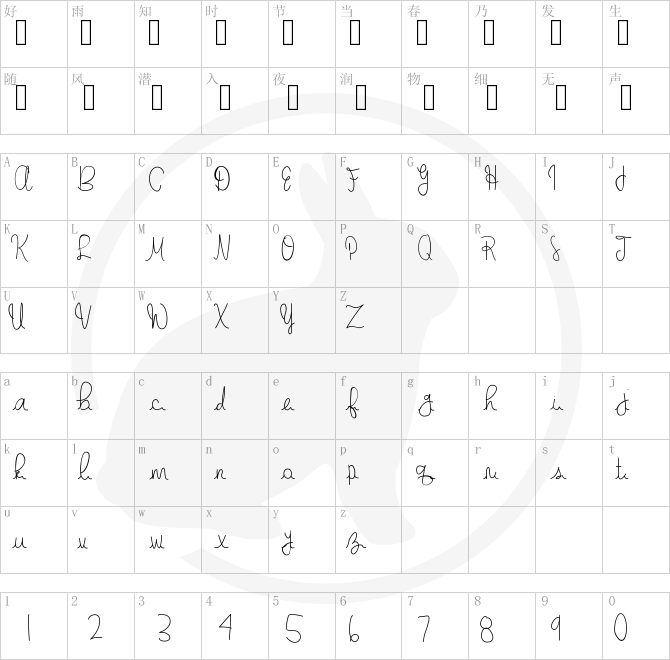
- Font Name:gabbishandwriting
gabbishandwriting.ttf is a very beautiful artistic font, gabbishandwriting.ttf is widely used in the design and printing of various books and pictures,gabbishandwriting.ttf has a strong visual impact,gabbishandwriting.ttf is a commonly used font in newspapers, magazines and books, and is used in posters, e-commerce Poster design, store design, logo design, font design and other fields.gabbishandwriting.